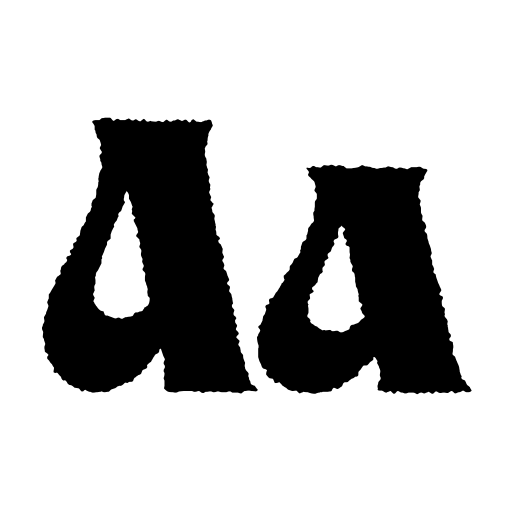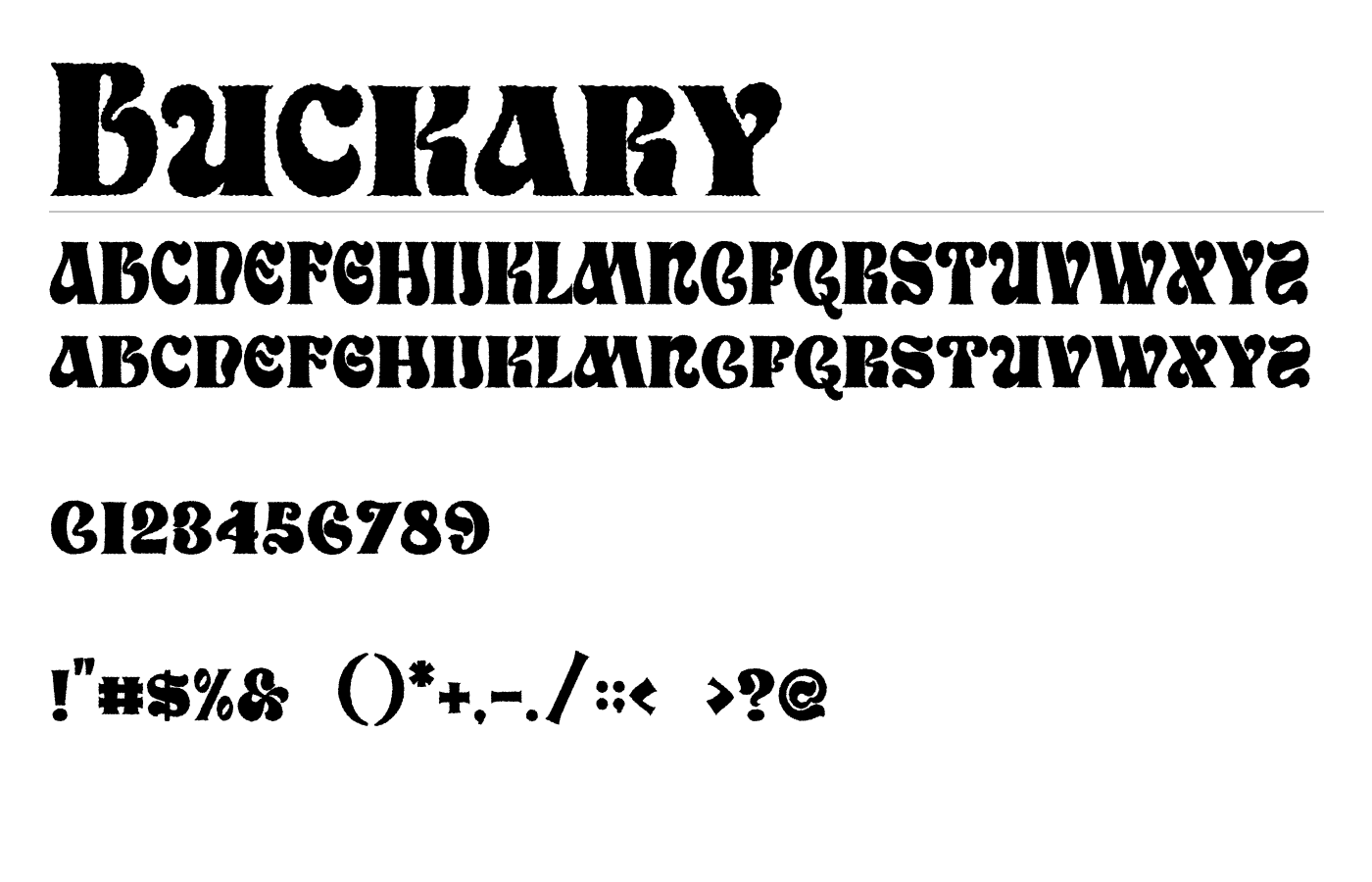
Buckary is a bold, decorative serif font with a playful vintage flair, featuring thick, uneven strokes and whimsical curves that add a unique character to each letter. Its condensed width, high contrast, and artistic shapes make it ideal for eye-catching headlines, logos, and posters that want to evoke a retro or handcrafted feel. This font works best when used sparingly to create a strong, memorable visual impact in creative and expressive design projects.
Buckary Font
About Buckary Font